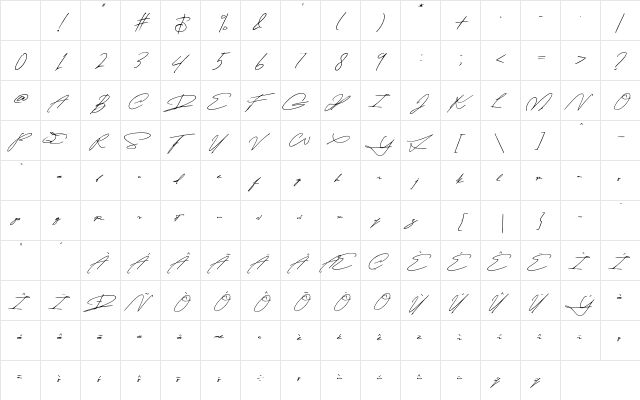
Complete Naturealo Regular glyph index. Displaying only characters natively supported by Naturealo Regular font.
Naturealo is a composed and adaptable typeface that performs quietly and consistently across a wide range of design contexts.